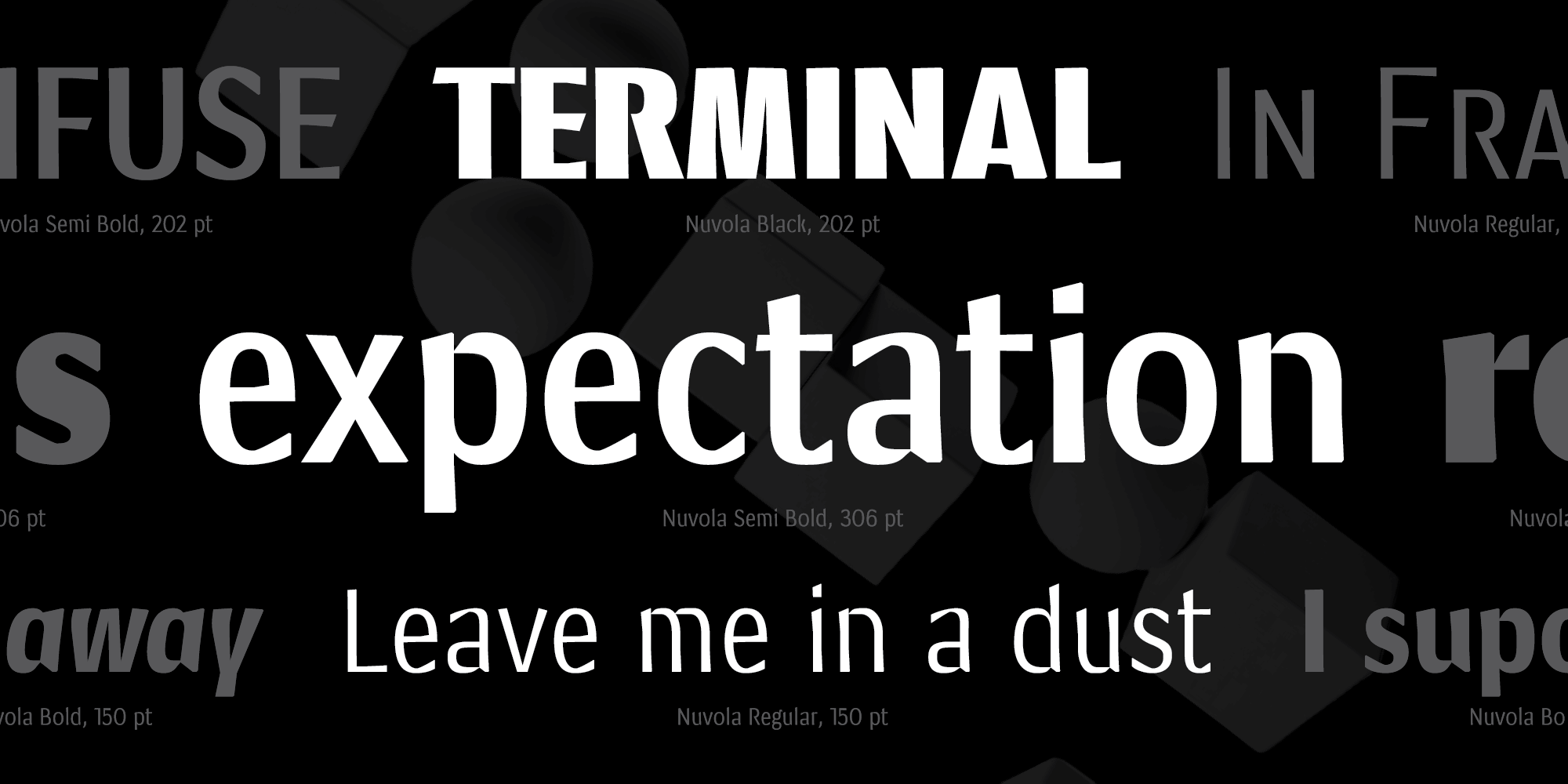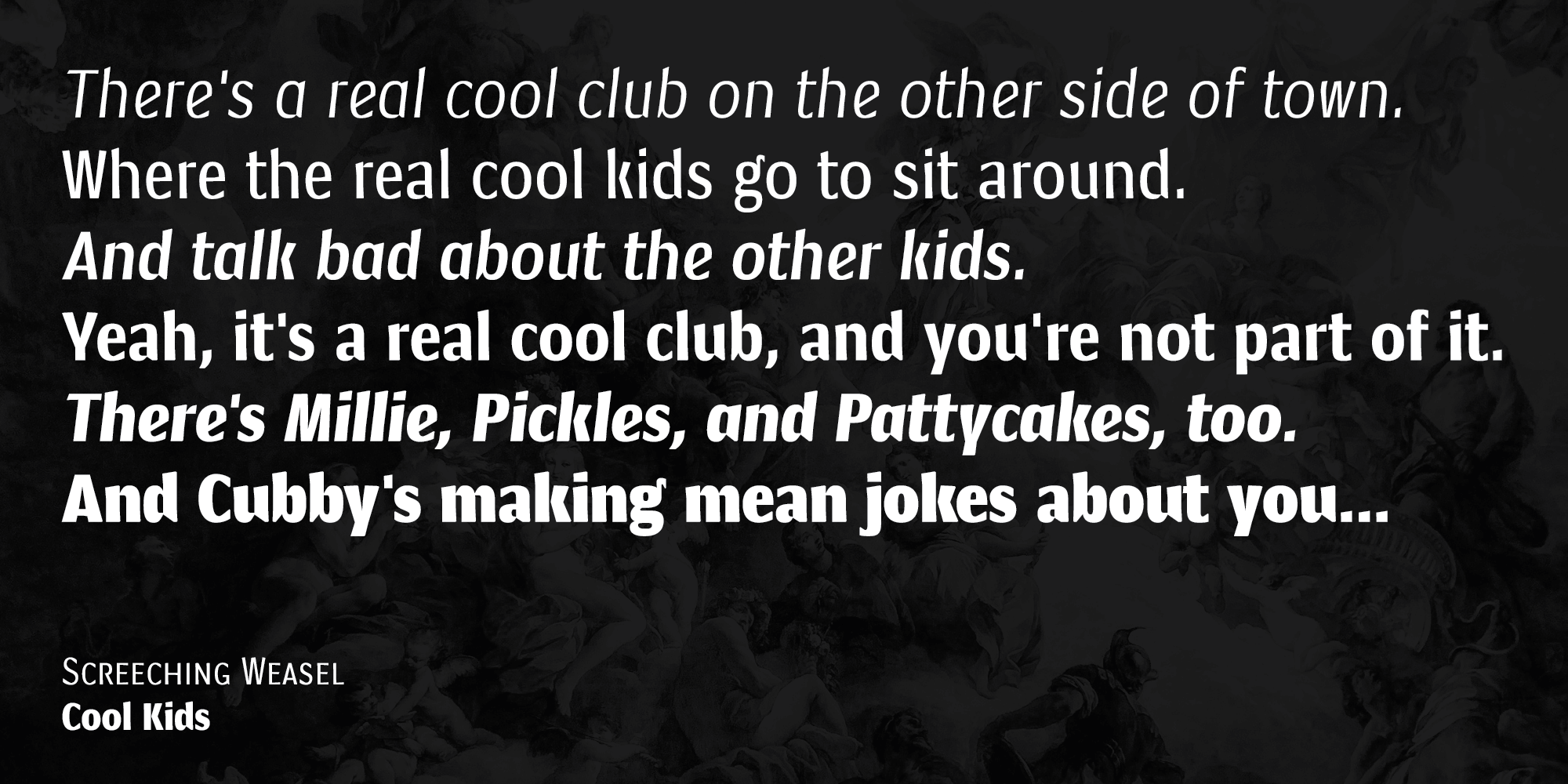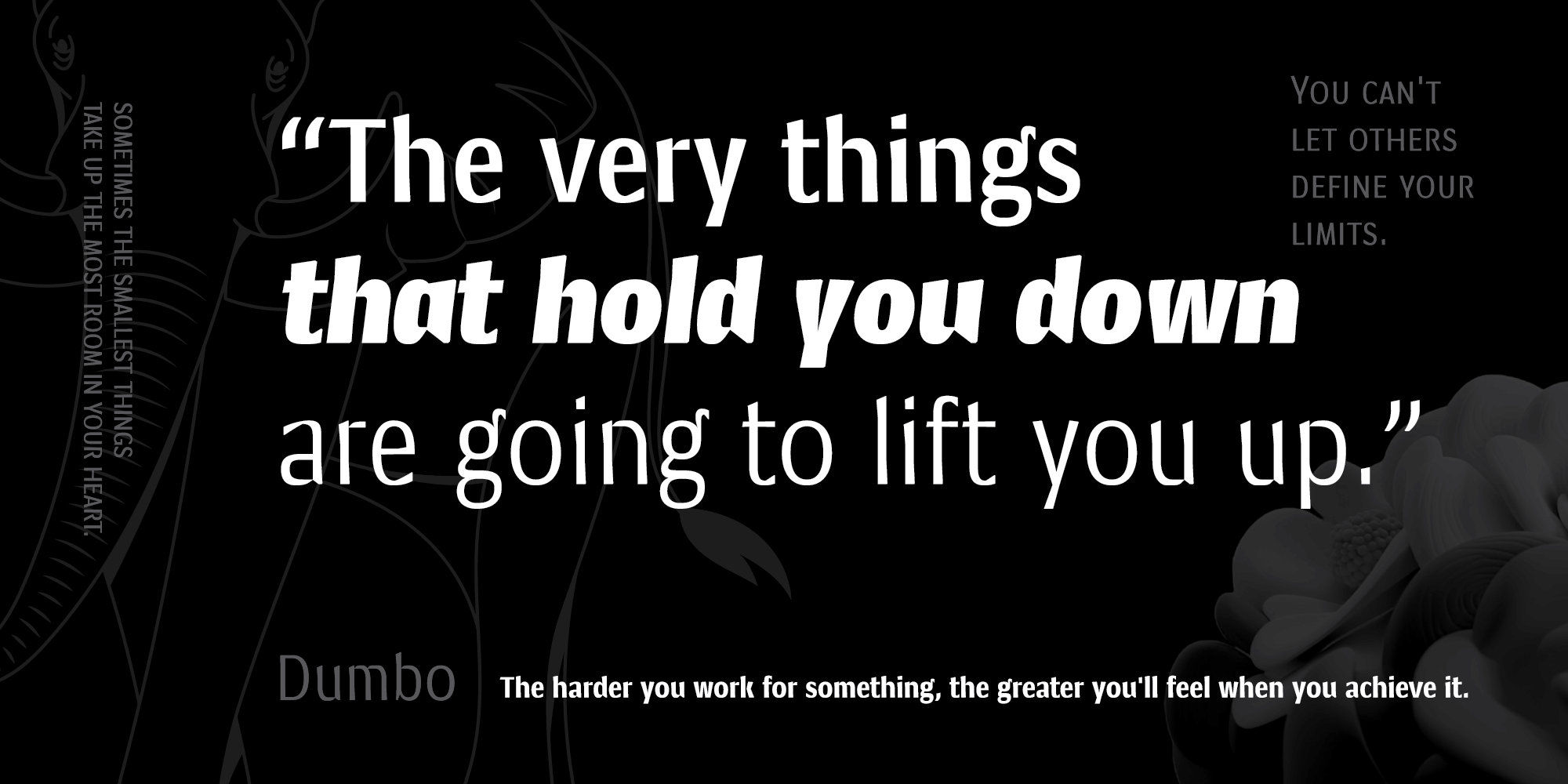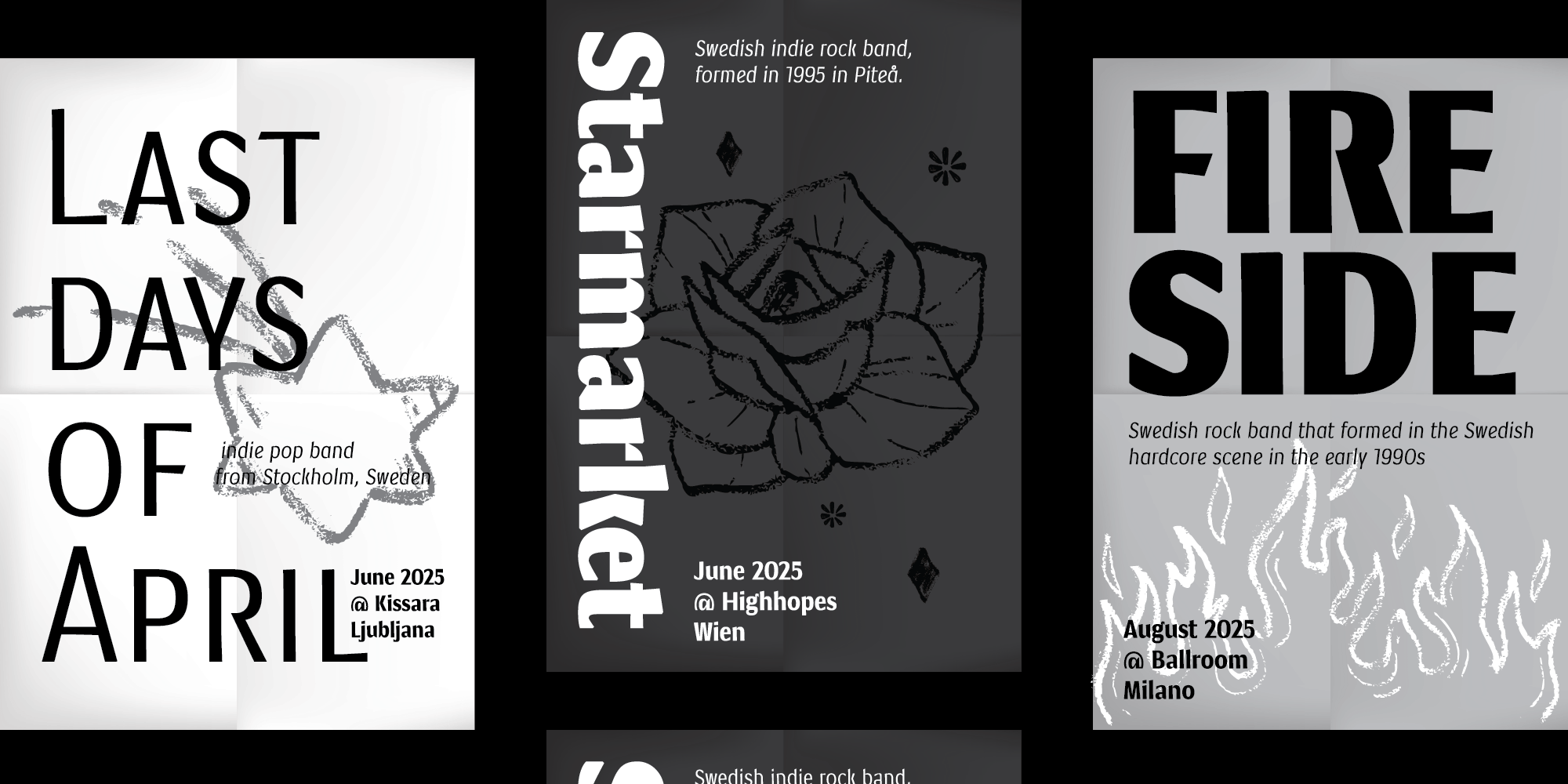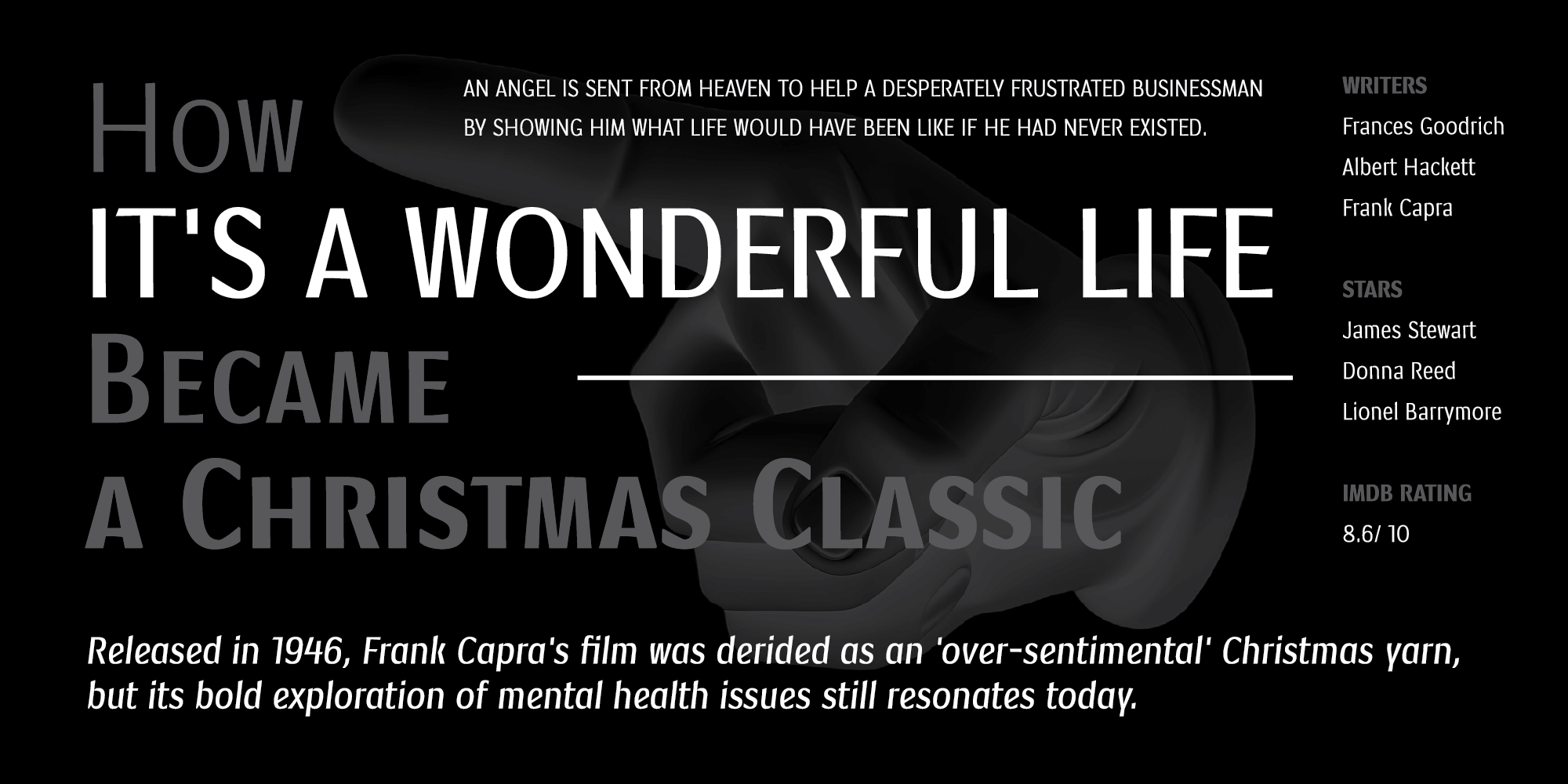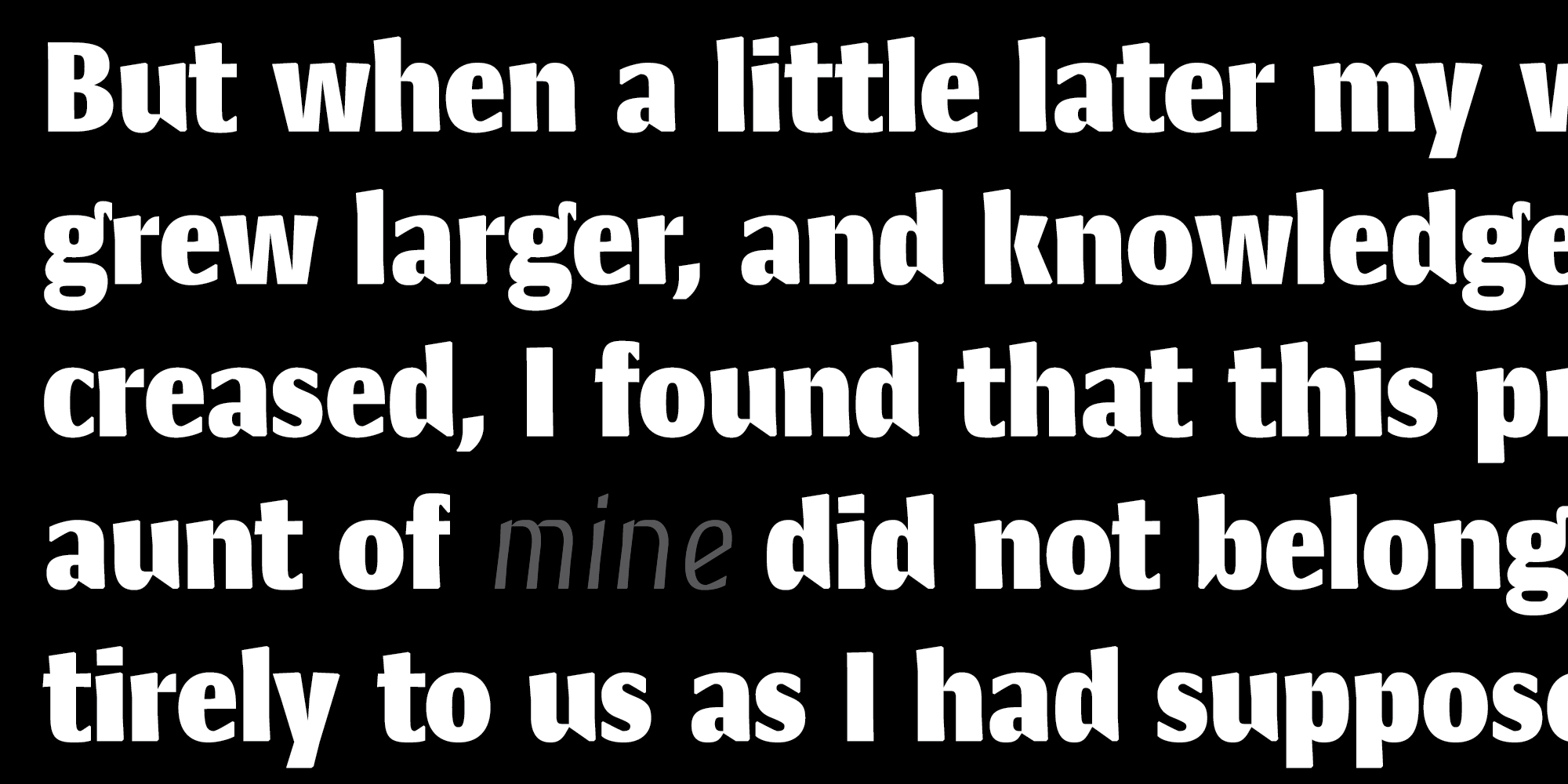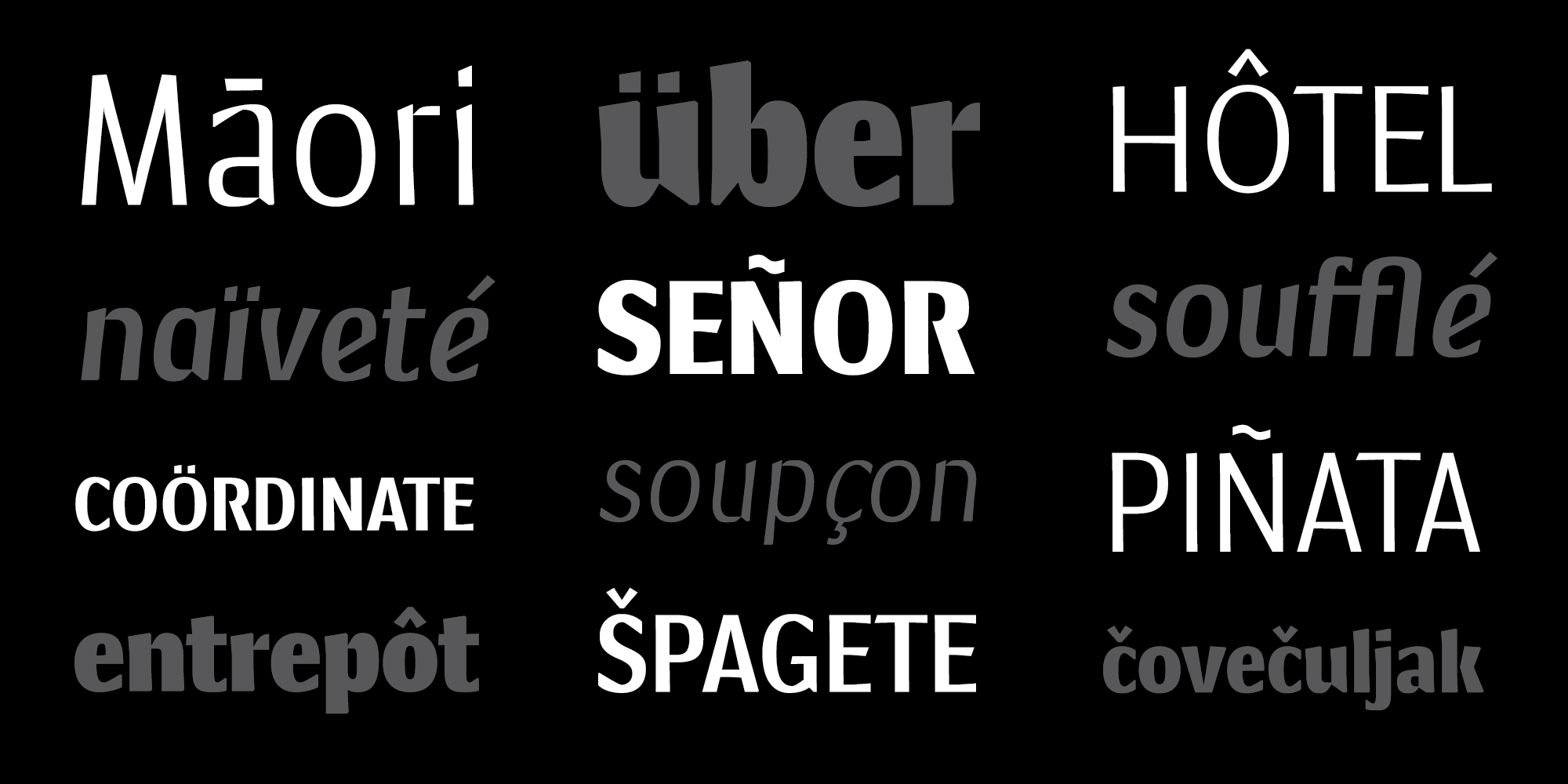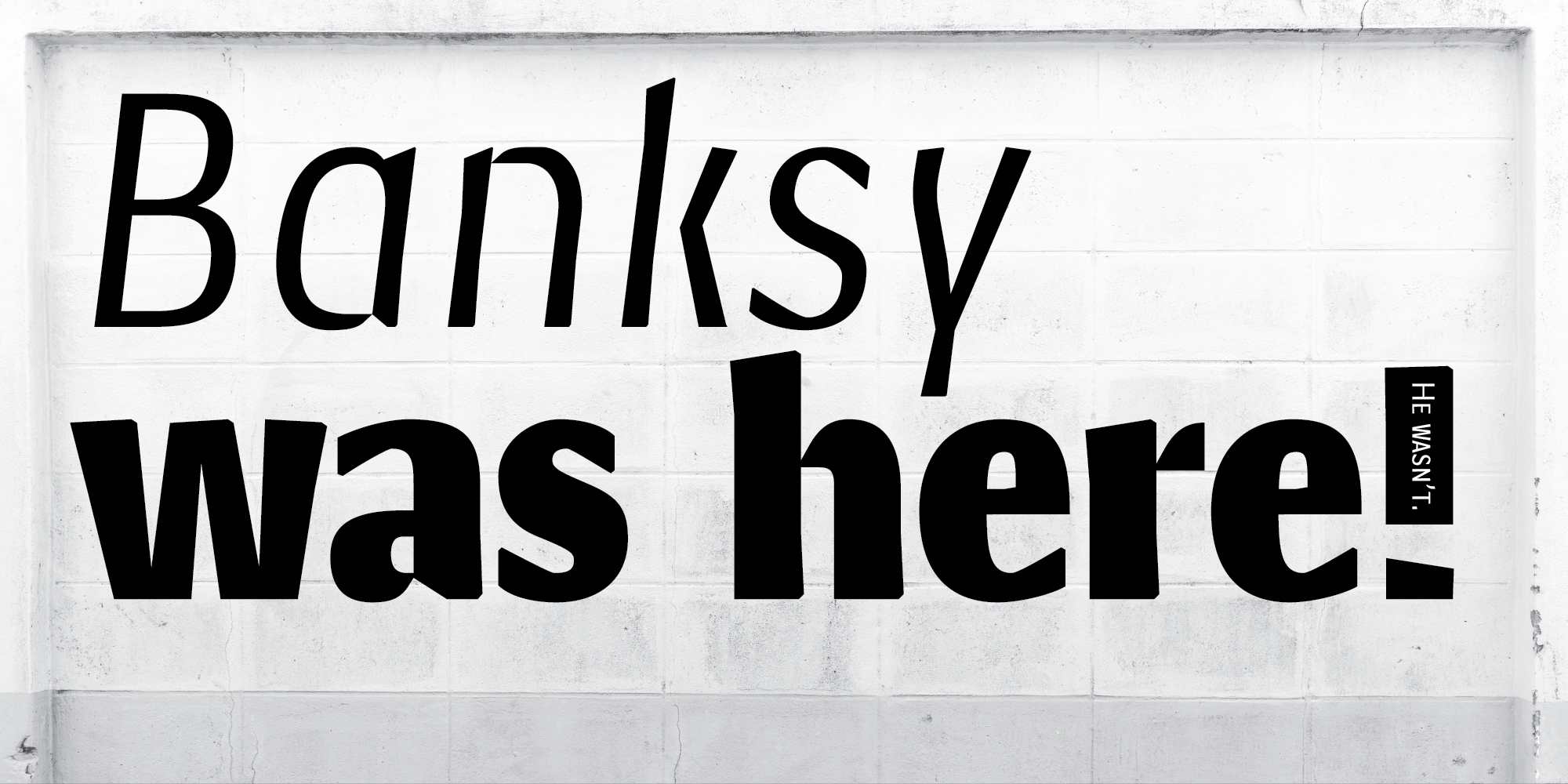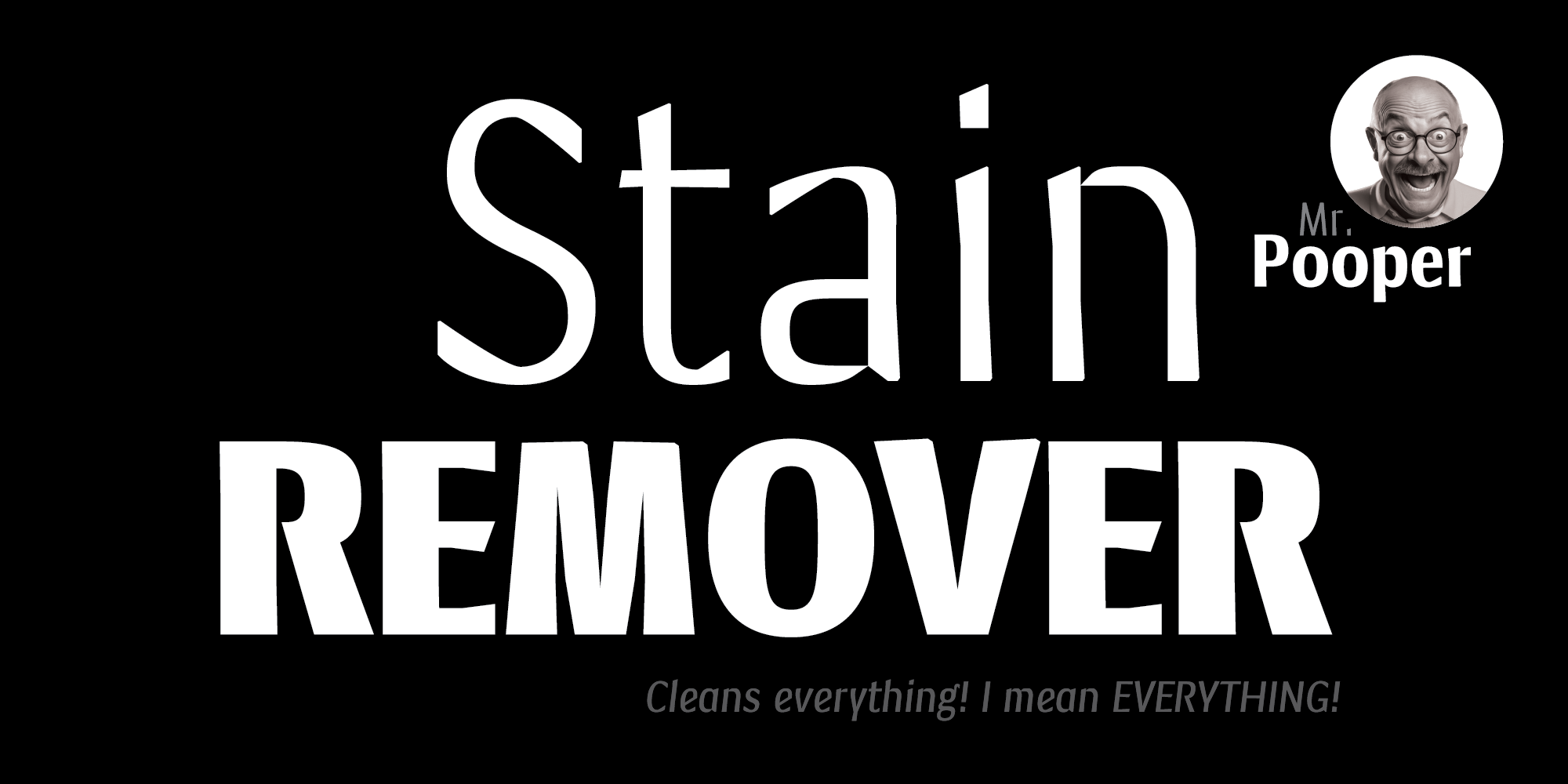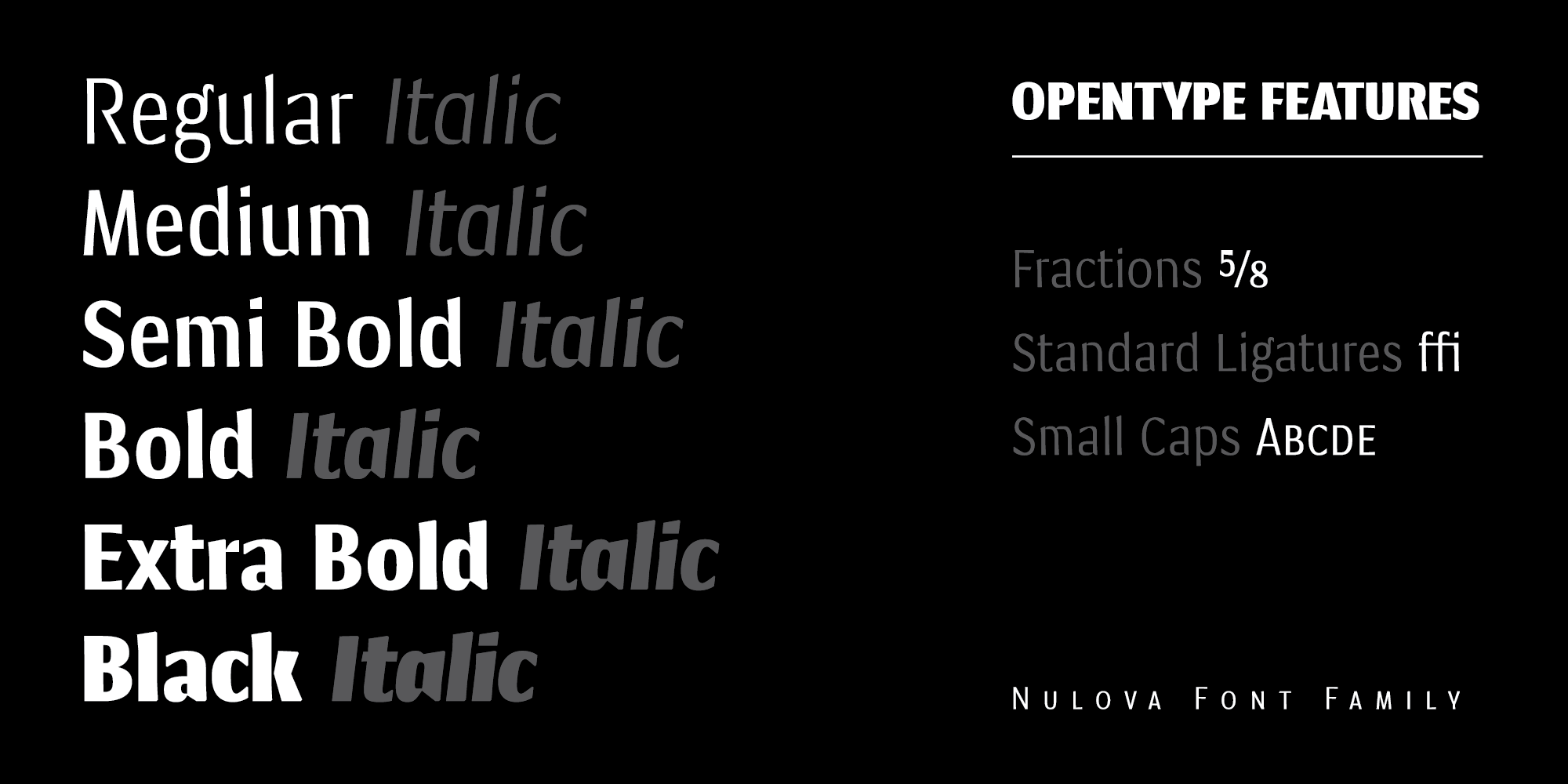
Nuvola
Designed by Dušan Jelesijević
It is designed with purpose to fit into every project – from editorial use (magazines, books, catalogues, brochures…) to package design, posters, outdoor graphic or websites, ebooks and apps as well. Nuvola looks pretty well in small sizes, while in bigger sizes Nuvola presents all its details. Letters in words look compact, stable, with decent dose of contrast and rhythm – all visually well balanced to display its smooth appearance.
Nuvola font family is available in 12 styles (6 weights and 6 Italics) packed with Small Caps, Fractions and Standard Ligatures as OpenType features.
Standard Ligatures
Small Capitals
Fractions